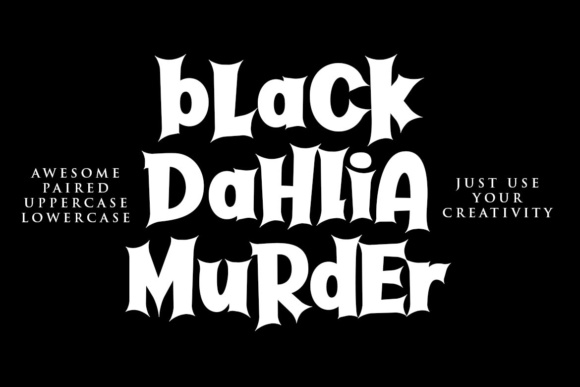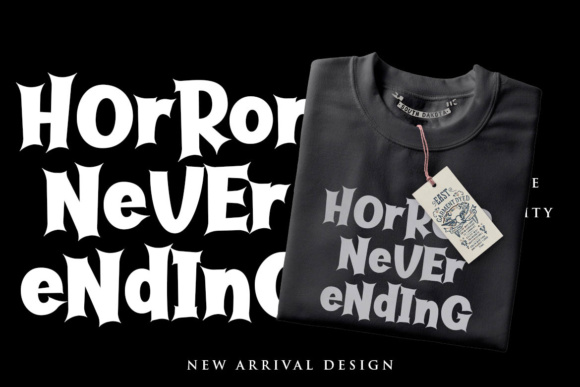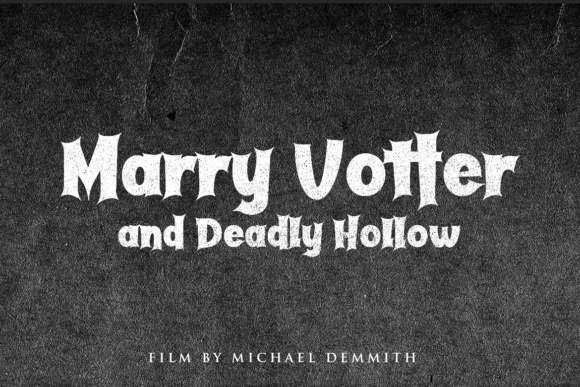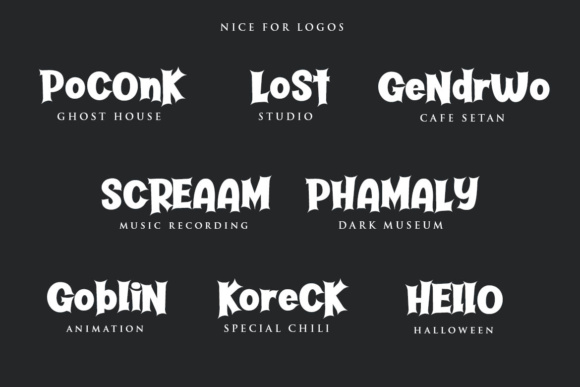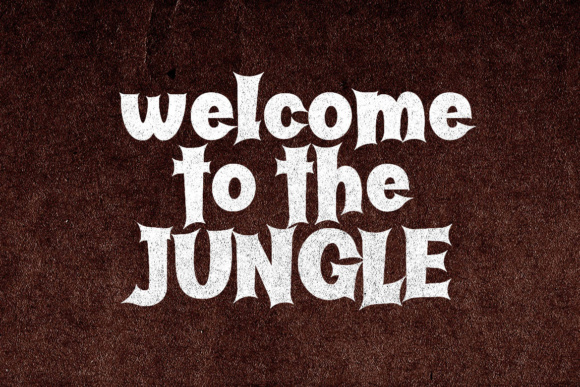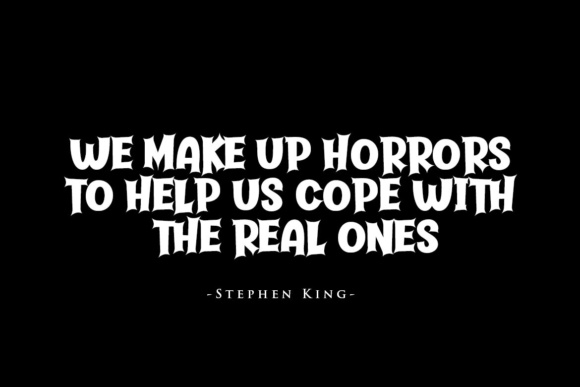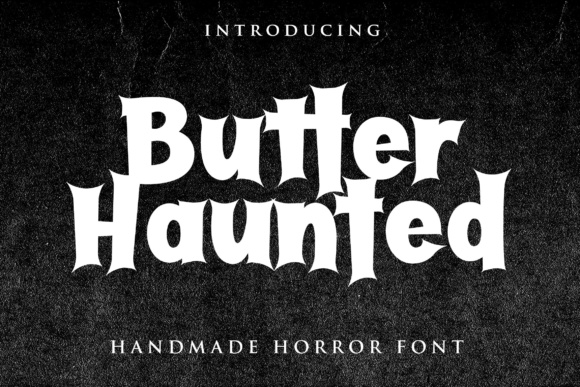
The Butter Haunted Font: A Spooky and Versatile Typeface for Horror Designs
Are you a designer or crafter looking for a font that can add a touch of horror and darkness to your designs? Look no further than the Butter Haunted font. This cool horror font is perfect for creating spooky and eerie designs for Halloween, dark clothing, horror movie posters, and more.
What is the Butter Haunted Font?
The Butter Haunted font is a unique and creative typeface that is designed to evoke a sense of horror and unease. Its irregular and distressed letterforms give it a creepy and unsettling feel, making it perfect for designs that require a dark and eerie atmosphere.
Features of the Butter Haunted Font
The Butter Haunted font has several features that make it stand out from other horror fonts. Some of its key features include:
- Unique and creative letterforms: The font’s irregular and distressed letterforms give it a one-of-a-kind look that is sure to grab attention.
- Distressed texture: The font has a distressed texture that gives it a worn and aged look, adding to its creepy and unsettling feel.
- Support for multiple languages: The font supports multiple languages, making it a versatile choice for designers and crafters around the world.
Uses for the Butter Haunted Font
The Butter Haunted font is a versatile typeface that can be used for a wide range of horror designs, including:
- Halloween designs: The font is perfect for creating spooky and eerie designs for Halloween, such as jack-o-lanterns, ghostly decorations, and more.
- Dark clothing: The font can be used to create creepy and unsettling designs for dark clothing, such as t-shirts, hoodies, and more.
- Horror movie posters: The font is a great choice for creating horror movie posters that need a dark and eerie feel.
- Other horror designs: The font can be used for a wide range of other horror designs, such as haunted house signs, creepy invitations, and more.
Tips for Using the Butter Haunted Font
Here are a few tips for using the Butter Haunted font:
- Use it sparingly: The font’s distressed texture and irregular letterforms can be overwhelming if used too much. Use it sparingly to create a greater impact.
- Experiment with different colors: The font looks great in a variety of colors, from bold and bright to dark and muted. Experiment with different colors to find the one that works best for your design.
- Pair it with other fonts: The Butter Haunted font can be paired with other fonts to create a unique and interesting look. Try pairing it with a clean and simple font to create contrast.
The Butter Haunted font is a cool horror font that is perfect for designers and crafters looking to add a touch of darkness and horror to their designs. Its unique and creative letterforms, distressed texture, and support for multiple languages make it a versatile choice for a wide range of horror designs. Whether you’re creating designs for Halloween, dark clothing, horror movie posters, or more, the Butter Haunted font is a great choice.